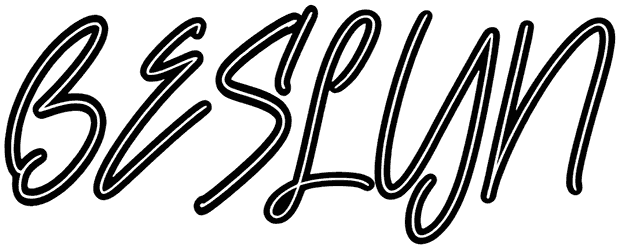
Streetwall Allcaps Font
Say hello to a graffiti font and bring your creative ideas into reality. Streetwall Allcaps font is amazing for a wide range of typography projects such as; games, grunge styles, arts, and whatnot. Try it out and see how well it goes. Just remember that this case doesn’t constitute lowercase letters. To find more of this assortment, check our website.
Designed by: Grewfont Studio